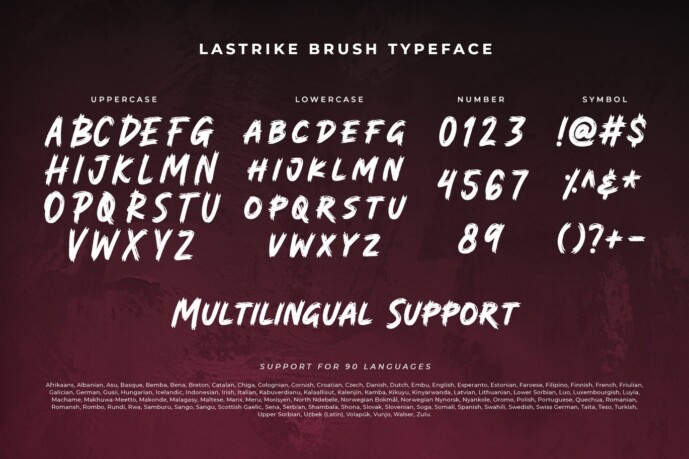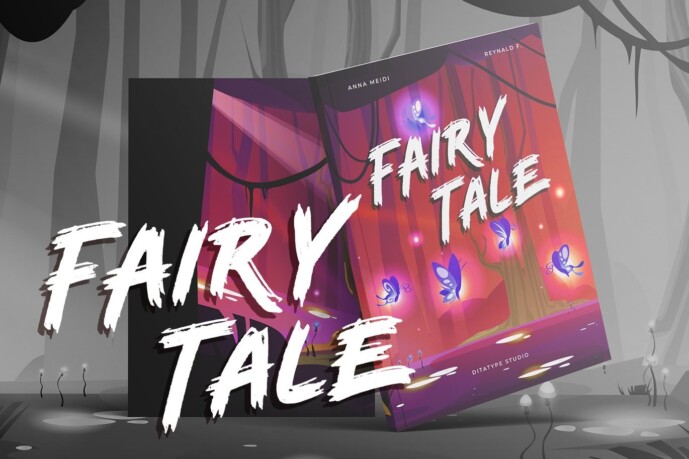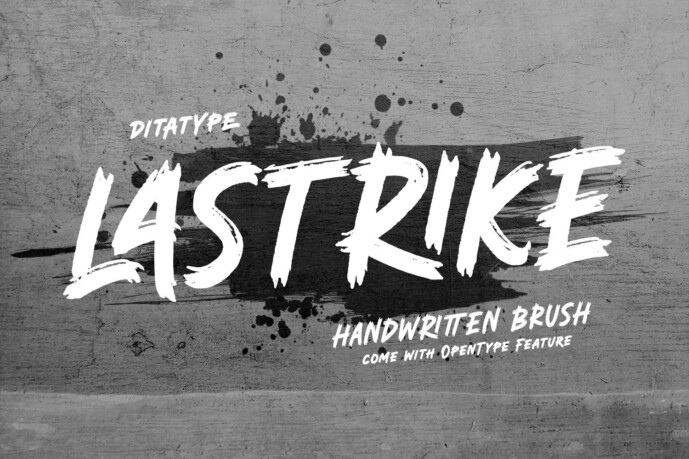
Lastrike Font
Lastrike Font is a bold brush typeface that gives off an urban vibe. Designed with powerful strokes, this font brings energy and attitude to your designs. The uppercase and lowercase letters share the same structure, with only their size differentiating them, making it versatile for different text layouts.